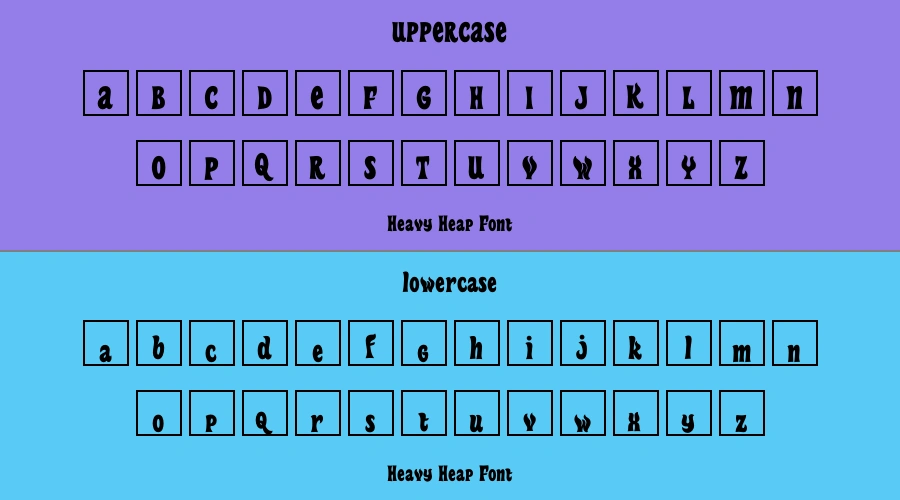
About Heavy Heap Font
Heavy Heap Font stands out for its distinctive combination of consistent strokes and clarity. Ideal for financial statements, it provides the longevity and market relevance that professional projects demand. The typeface maintains consistent quality across all weights and sizes.
Key features include refined hand-drawn quality and practical numerator/denominator, enhancing typographic expression. In promotional materials applications, Heavy Heap Font demonstrates exceptional brand recognition. The loop structure and market positioning contribute to its distinctive character and professional appeal.